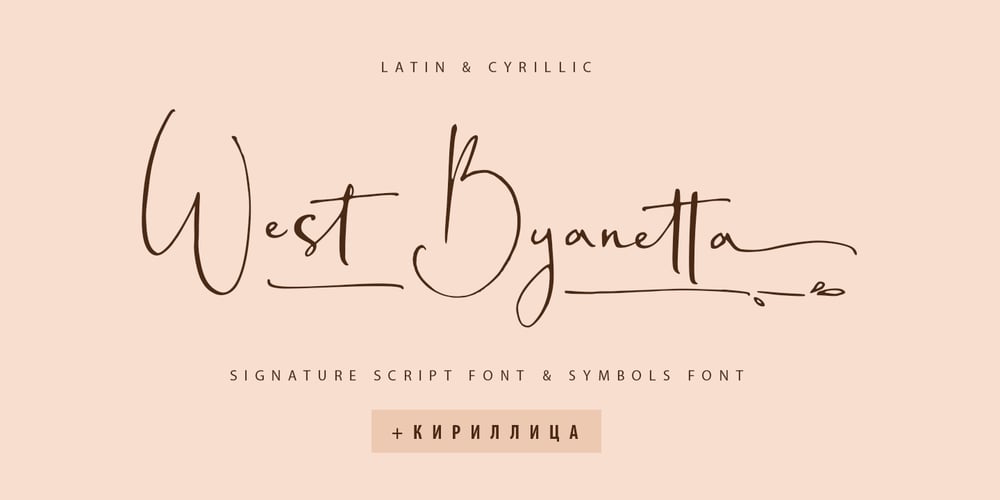
West Byanetta Cyrillic Font Family was designed by Iryna Dviliuk and published by Ira Dvilyuk. West Byanetta Cyrillic contains 2 styles and family package options. I’m happy to present to you luxurious handwritten script font West Byanetta Cyrillic. It’s the best option for your branding, logo designs, invitation designs wedding stationery, social media, product packaging and other projects that require an elegant touch.West Byanetta Cyrillic is an elegant, graceful handwritten script font, as well as a West Byanetta Symbols font with 36 lovely hand-drawn flourishes and illustrations.West Byanetta script font contains the Cyrillic glyphs too.West Byanetta script Latin part contains a full set of uppercase letters and 3 full sets of lowercase letters, (standard, initial and final forms). To make a needed form just type a letter with a number such as a1, b1, c1…after that selecting the word and apply the Open Type Features in programmes such as Adobe Illustrator, Photoshop, and others) And 40 ligatures – which can be used to create a handwritten look.The Cyrillic part of the font contains the uppercase letters and 3 full sets of lowercase letters, (standard, initial and final form. To make a needed form just type a letter with a number such as a1, б1 в1… After that select the word and apply the Open Type Features in programmes such as Adobe Illustrator, Photoshop, and others) Also Cyrillic part of the font contains 31 handwritten Cyrillic ligatures.West Byanetta Symbols is a font with over 36 hand-drawn elements, floral illustrations, and swashes and can help to make your design unique and matchless. Combine and merge swashes and illustrations to create your own designs and make borders, frames, dividers, logos, and more (just use A-Z or a-z and 0-9 keys in the included West Byanetta Symbols font). A different symbol is assigned to each uppercase or lowercase standard character, so you do not need graphics software, just type the letter you need.Language Support for 32 languages: Latin glyphs for Afrikaans, Albanian, Basque, Bosnian, Catalan, Danish, Dutch, English, Estonian, Faroese, Filipino, Finnish, French, Galician, Indonesian, Irish, Italian, Malay, Norwegian Bokmål, Portuguese, Slovenian, Spanish, Swahili, Swedish, Turkish, Welsh, Zulu.And Cyrillic glyphs support for Russian, Belorussian, Bulgarian, Ukrainian and Kazakh languages.Works perfectly on the Canva platform.For Cricut & Silhouette recommended.